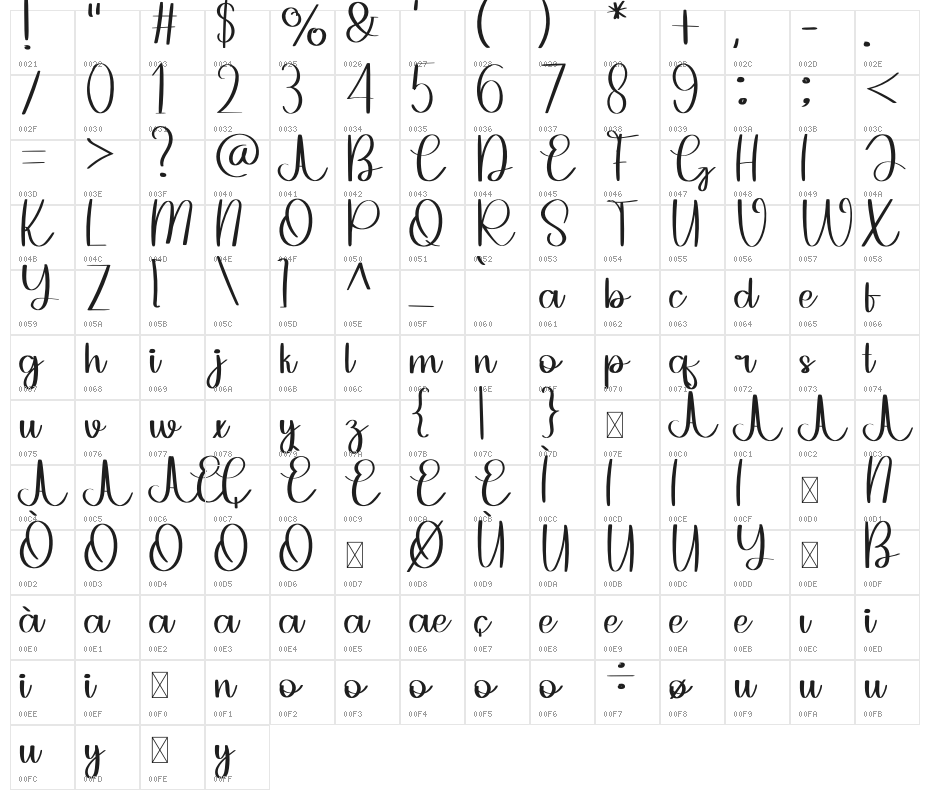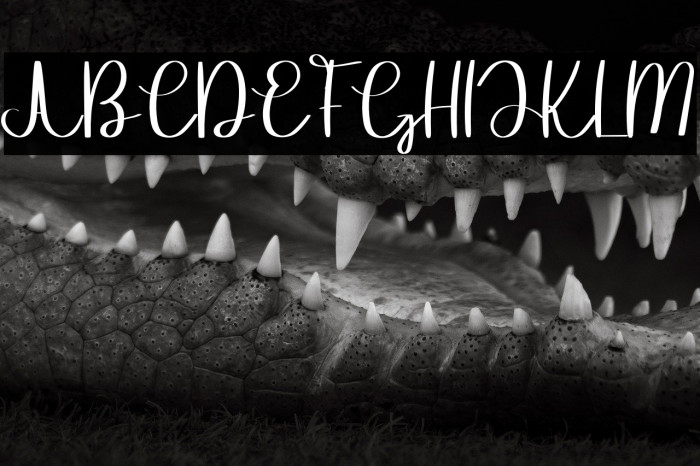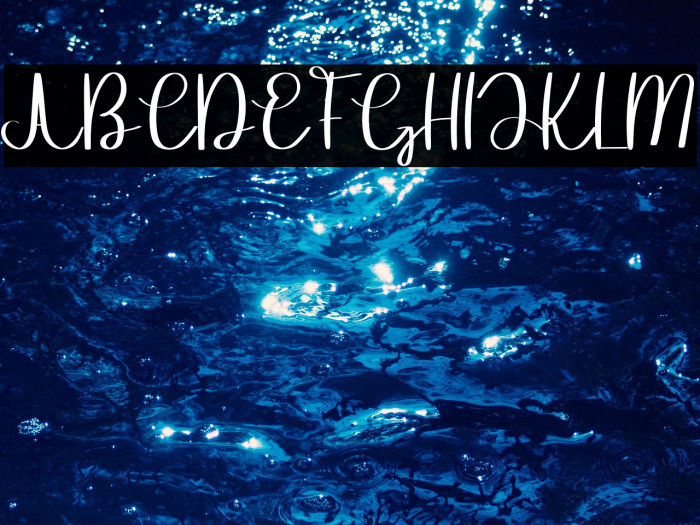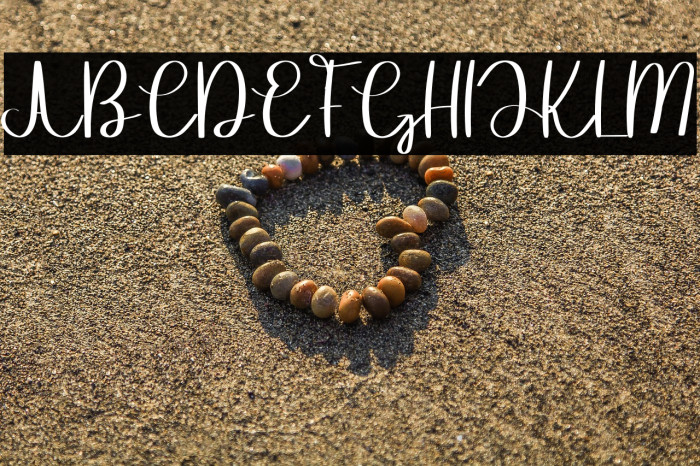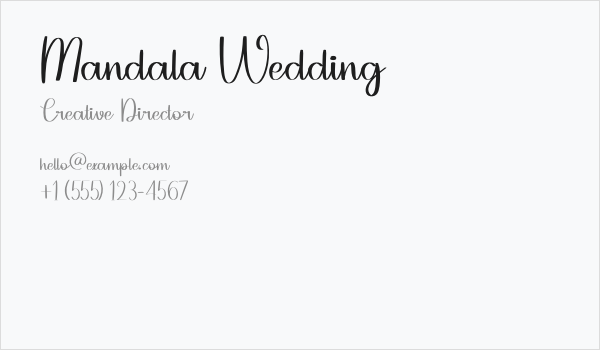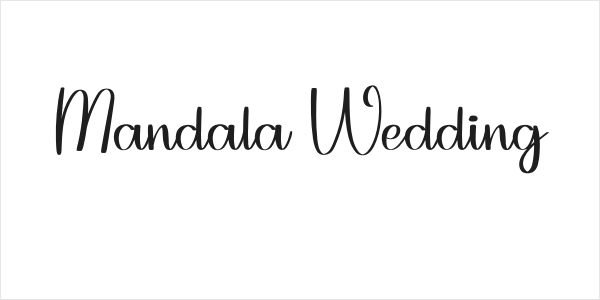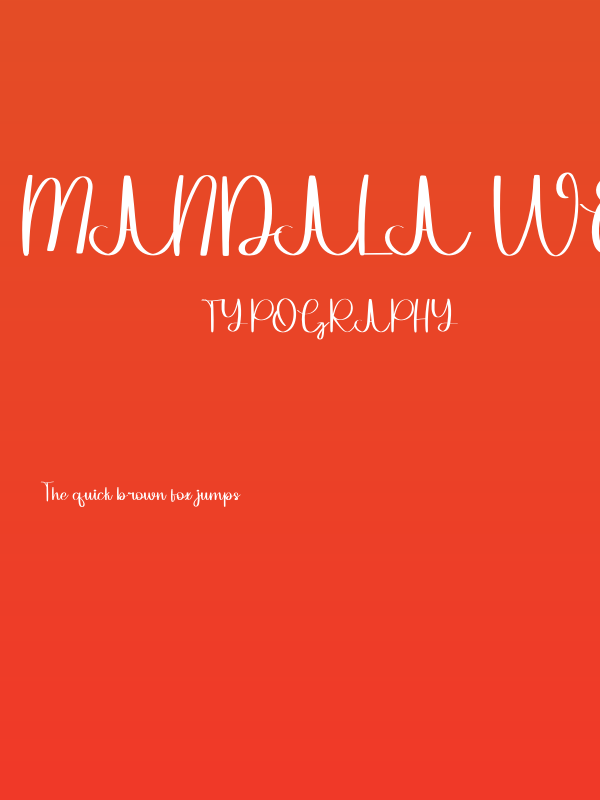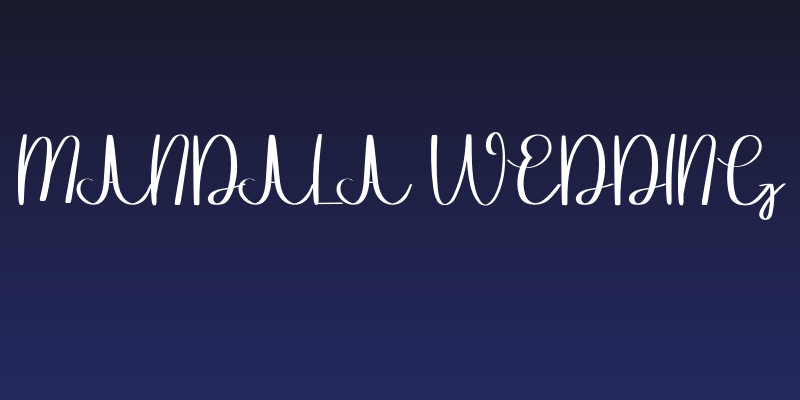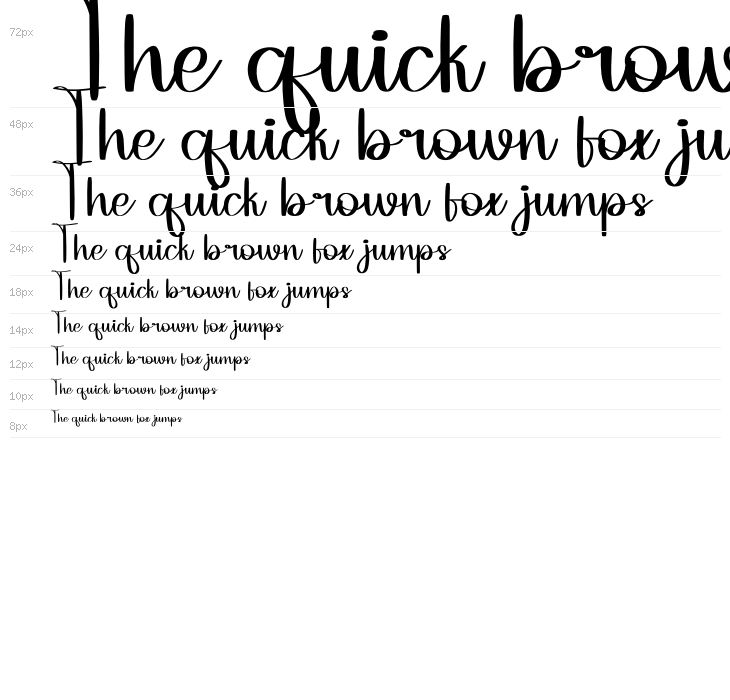
Mandala Wedding Font
Mandala Wedding Description
A decorative script font with flowing, elegant curves and a handwritten style, suitable for formal and celebratory occasions.
| Use Case | Headlines, Invitations |
| Proposed Projects | Wedding invitations, greeting cards, event signage. |